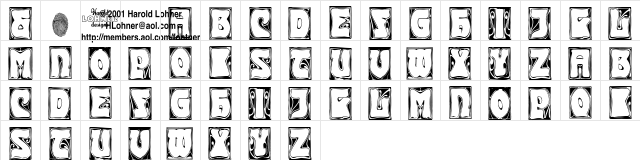
Carmen CapsOutside Regular Free Font
Carmen CapsOutside Regular
Design Context for Carmen CapsOutside
Carmen CapsOutside is a composed and adaptable typeface that performs quietly and consistently across a wide range of design contexts.